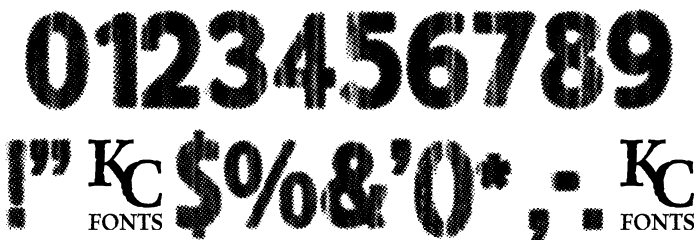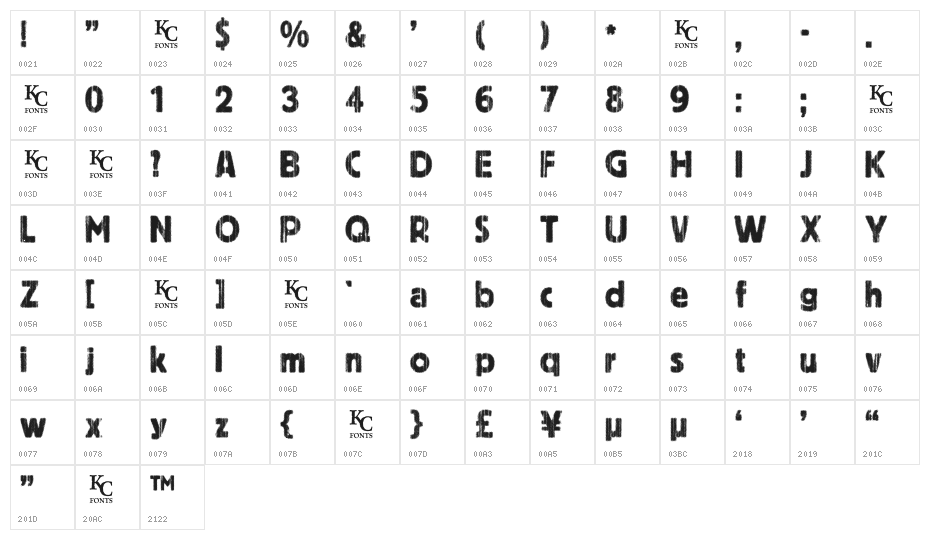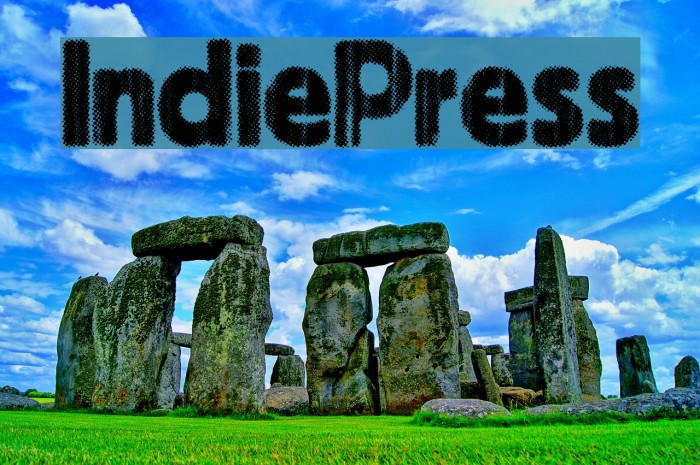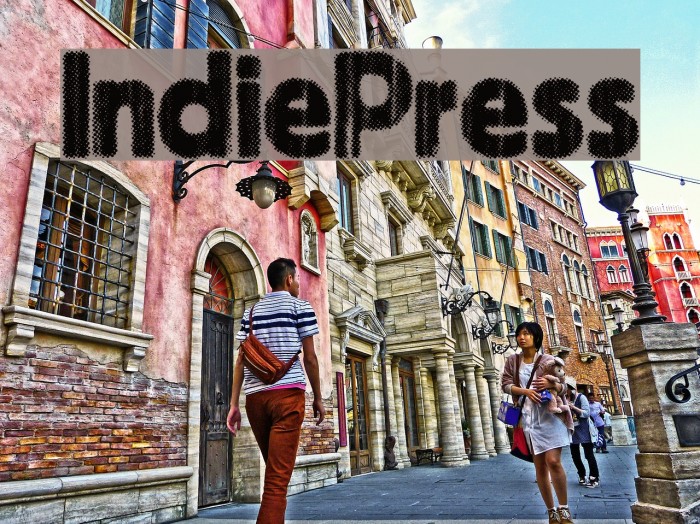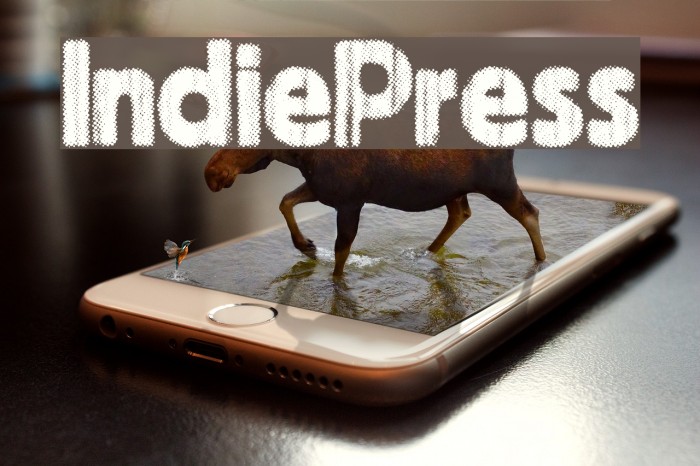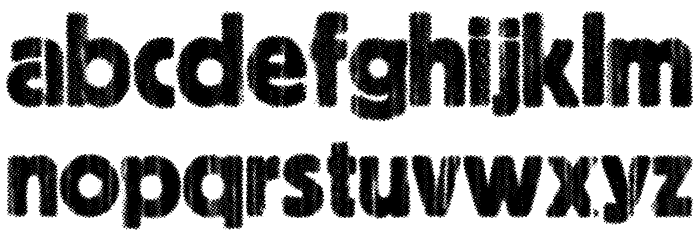
IndiePress Font
IndiePress Description
This font features a bold and textured style, characterized by its thick, rounded letterforms and a distinct halftone pattern that gives it a vintage, retro feel. The uppercase and lowercase letters maintain a consistent weight, providing a strong visual impact. The numerals and special characters follow the same design, ensuring uniformity across all glyphs. Its unique texture makes it stand out, adding a tactile quality that is both eye-catching and memorable. The font's overall appearance is playful yet robust, making it suitable for projects that require a touch of nostalgia or a bold statement.
| Proposed Projects | Ideal for retro-themed posters, album covers, branding, and packaging design. |